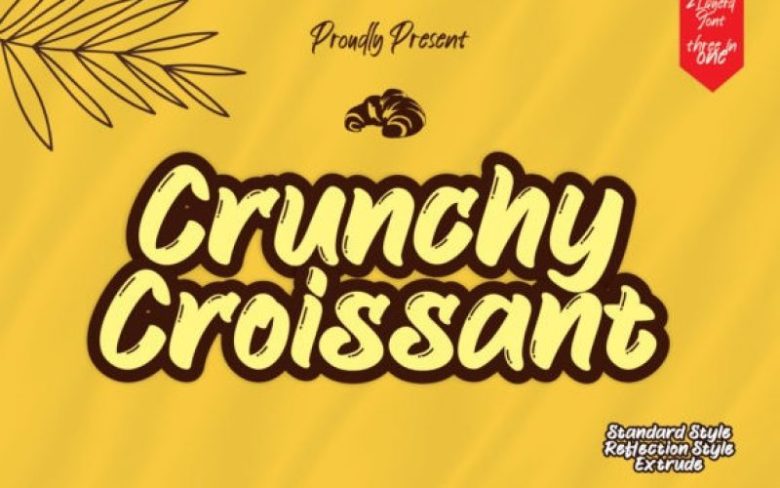
Crunchy Croissant Display Font
Crunchy Croissant is a font with a bold handwritten style. Incredibly versatile, this font will fit a wide pool of designs.
Fall in love with its incredibly stylish look and use it to create spectacular designs!